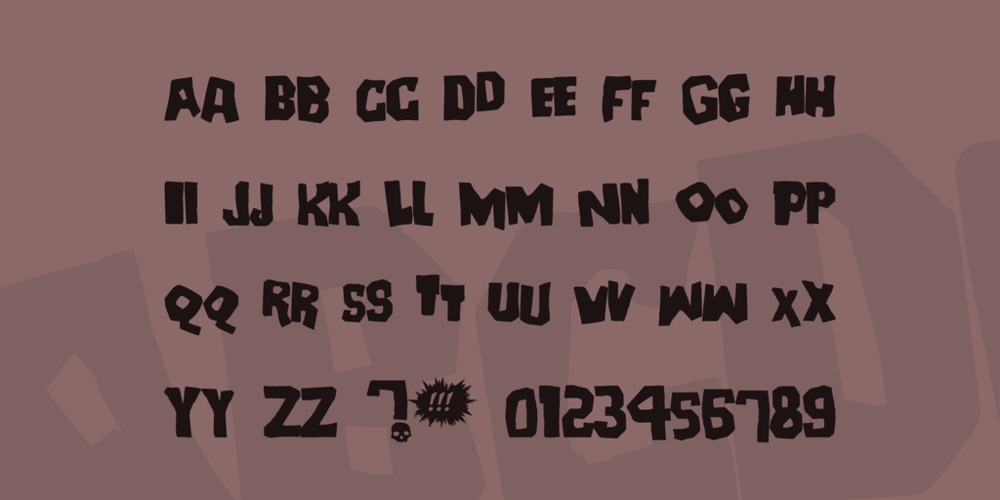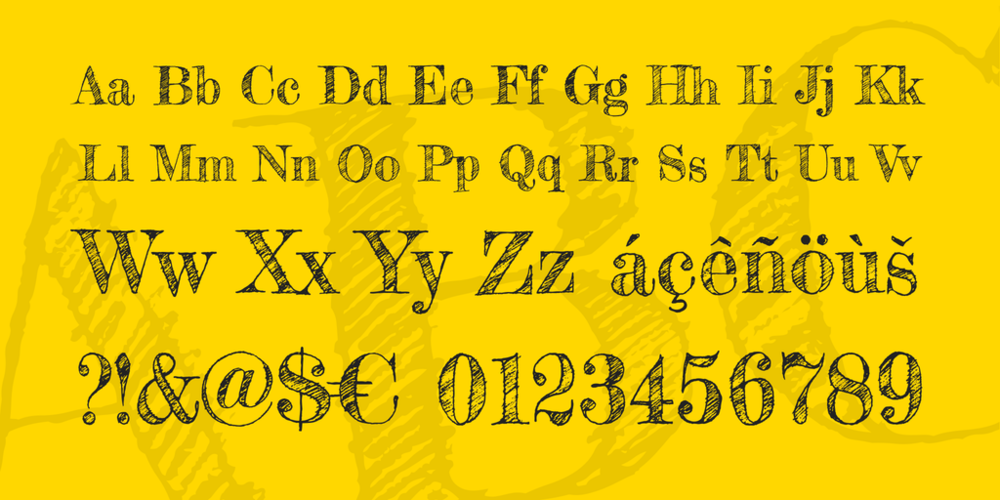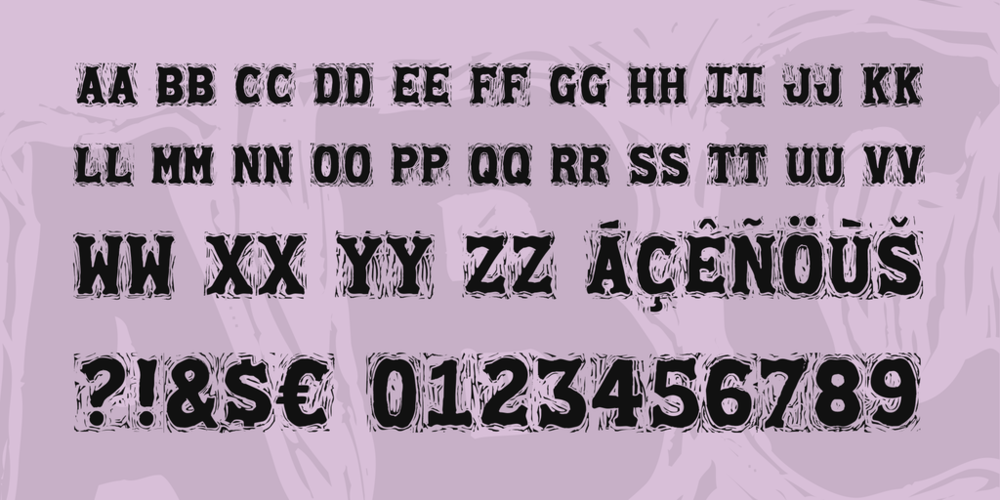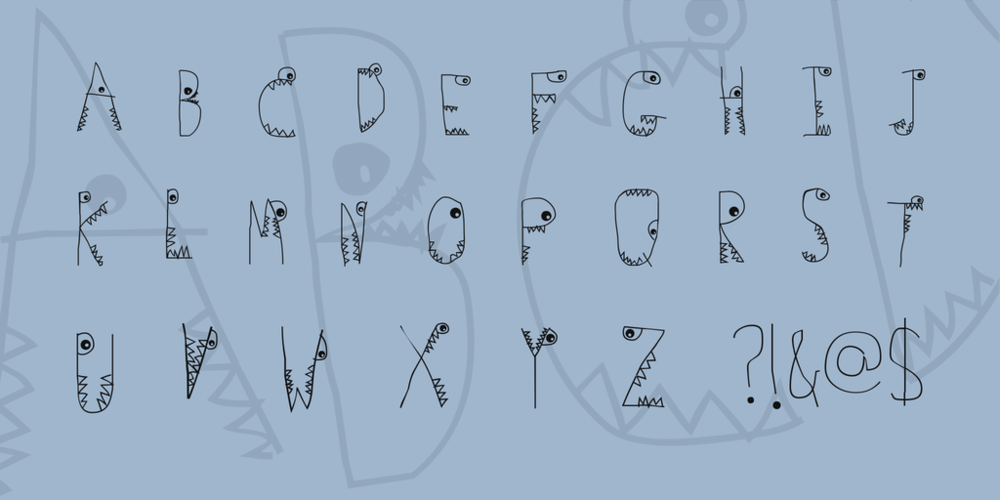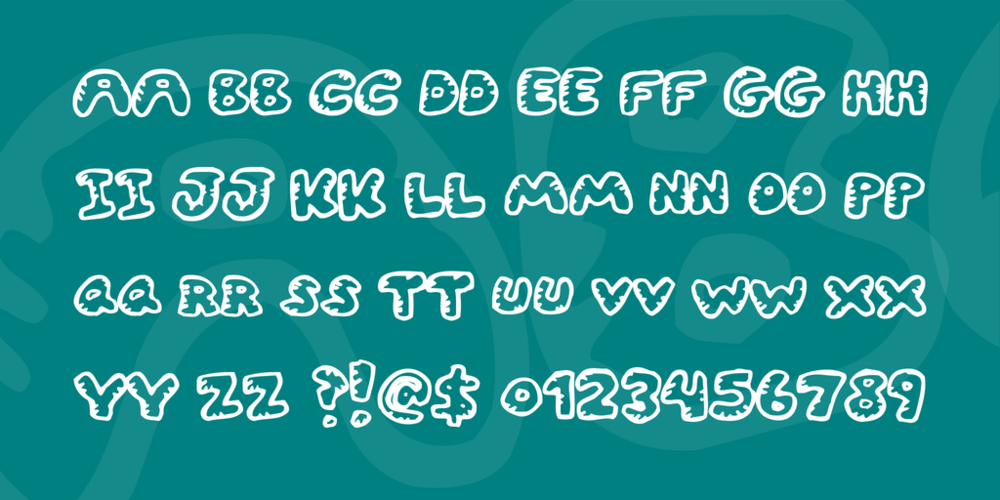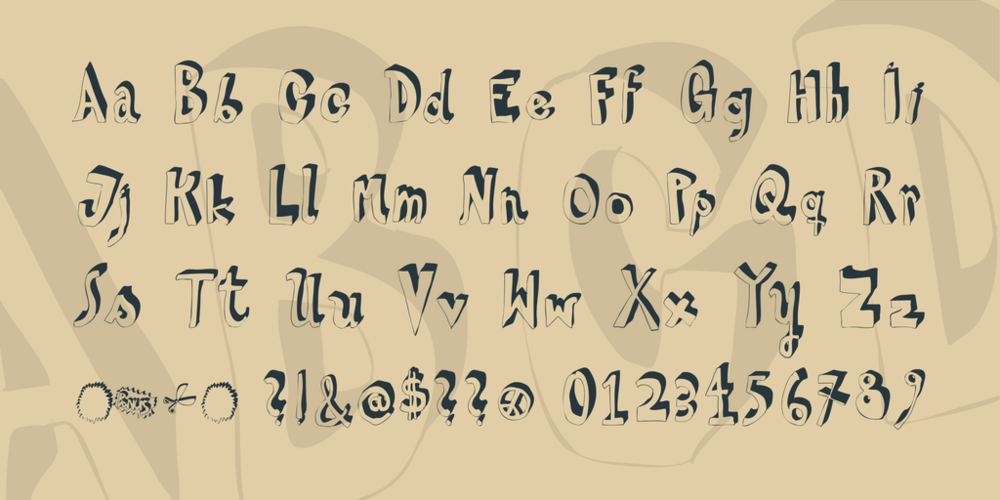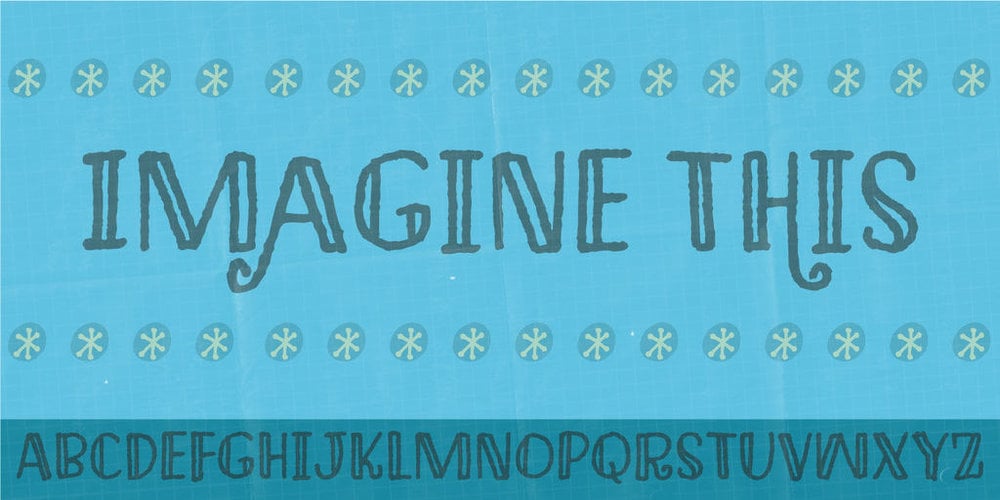
Need some inspiration that’ll help make your next project unique? Use these hand lettering fonts for your next lettering masterpiece!
If you’ve been searching for the perfect hand lettering font to inspire your next project, we’ve got you covered. There are thousands of fonts out there, but only a small fraction of them would actually make sense for hand lettering. Ideally you’d want a font to be super drawable, to vibe with the aesthetic of the project, and to catch the viewer’s eye. The perfect lettering font is one where each letterform is a piece of art in its own right.
To help sift through the thousands of fonts on the internet, we’ve hand-picked 35 eye-catching hand lettering fonts, all of which are free for personal use (many are even free for commercial use, too). We also give you some ideas on when to use each font style. From flourish-heavy fonts, to monospaced serifs, to super punk DIY fonts, to fonts that parody your favorite brands, these fonts are sure to inspire hand letterers of all skill levels.
1. 10 Minutes Font
An ominous name for an ominous lettering design. 10 Minutes is spookier than watching a ghost movie on Friday the 13th while trapped in a haunted house. This spine-tingling font design would be perfect for a Halloween project or if you’re just looking to use your hand lettering skills to connect with some spirits. Holding a seance soon? Hand letter your ouija board with 10 Minutes to add some extra spookiness.
Created by Pizzadude
2. 42 Font
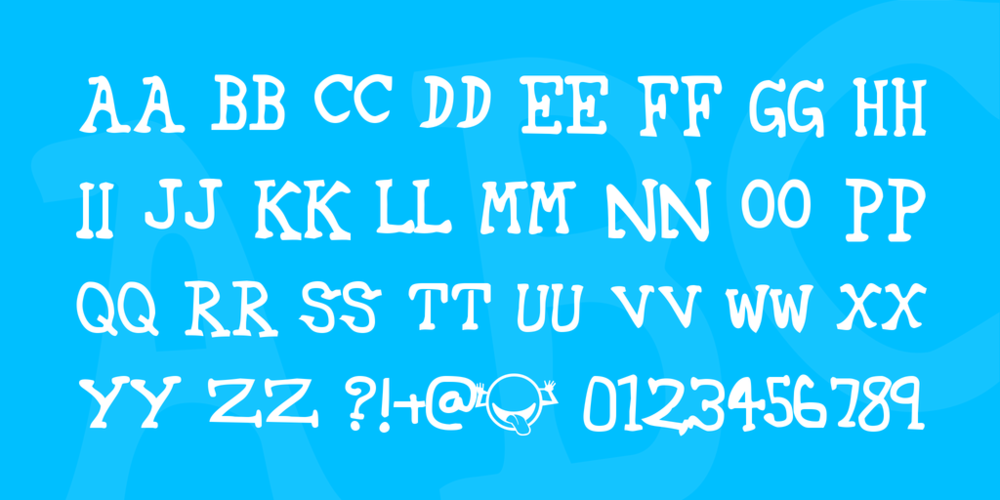
This is a plucky hand lettering style that embodies lighthearted rebellion. All the tails of the letterforms are sort of off to the side, extended a little too far to the right or a bit too far down. Some of the letters (like G) even look like they might be arrows pointing up. A sort of typographical middle finger raised to authority. This hand lettering font would be ideal for projects that express a sort of youthful, reckless abandon.
Created by Dale Harris
3. Candy Inc. Font
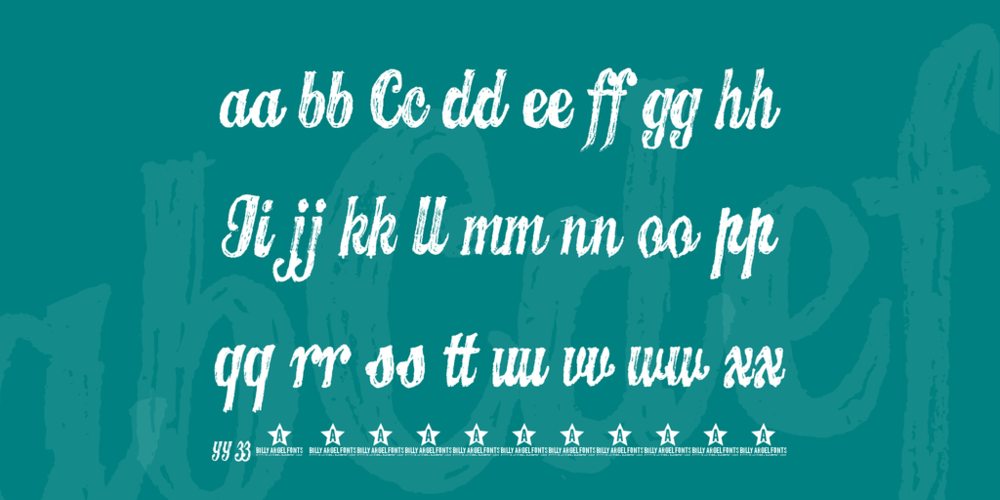
Candy Inc. is a script hand lettering design that combines the elegance of script with the shading of more typical blocky letterforms. It’s a great font design for hand lettering artists that are looking to try something subtle without being totally unnoticeable. It’s a font that skillfully sits at the intersection of two different types of styles.
Created by Billy Argel
4. Carolingia (BigfooT) Font
Carolingia is a lettering design style that seems like it’s straight out of the mind of J.R.R Tolkien. It’s not hard to imagine this font outlining the misadventures of elves, orcs, wizards, and even hobbits. As you’d probably be able to guess, this font design seems perfect for a fantasy themed hand lettering project or one that could use a double shot of magical inspiration. Notice the sharpness of the lowercase “f” that makes the letterform seem sword-like.
Created by Ricky Vampdator
5. Caveman Font
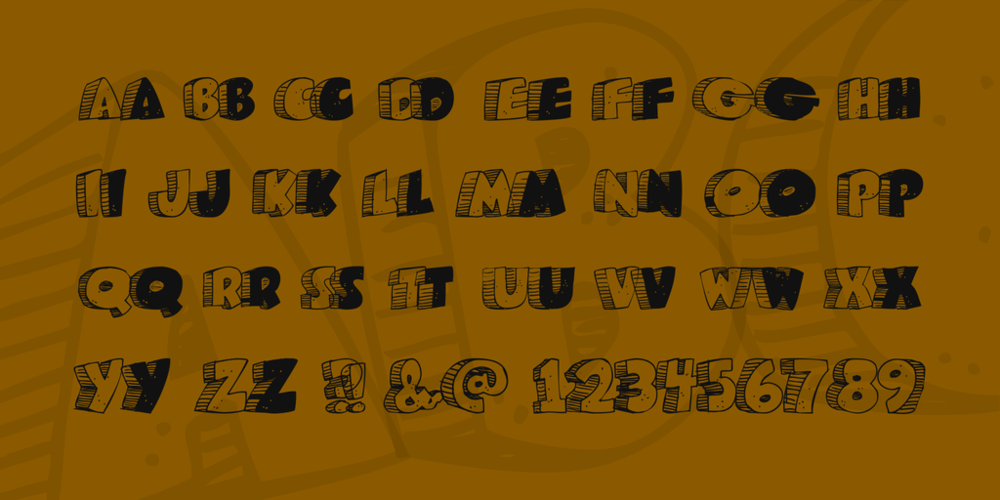
This is a super fun hand lettering design that actually looks like it was carved into stones by cavemen (shout out to Fred Flinstone). This spot-on prehistoric effect was mainly achieved through tiny notchings on the left sides of the letters as well as a few small dots that give the letterforms texture. This font style is perfect for hand lettering projects that are supposed to have a prehistoric or ancient feel.
Created by Font-a-licious
6. Channel Tuning Font
This font design is eye-catching in that it completely achieves its desired visual effect. All the letters look like a TV picture in the process of being tuned (though we’re now far beyond the days where you’d have to manually turn knobs to achieve a picture). This font style would be perfect for framing your projects within a drawn TV structure.
Created by Brain Eaters
7. Chlorinar Font
If you grew up in the 80’s or 90’s, you’ll probably recognize this font style right away. It bears a pretty strong resemblance to the title card of a certain animated TV show. If you haven’t guessed, it’s the one that highlights the antics of 4 walking, talking teenage mutant ninja turtles. Nostalgia is huge right now, so we suggest using this font if you want to give your hand lettering designs a certain throwback feel.
Created by Cafeen Fonts
8. Christmas on Crack Font
Besides having a hilariously descriptive name, Christmas on Crack is one of the most eye-catching font designs on this list. It does a good job of alluding to a traditional “Once upon a time” style, but switches up the tradition with sharp letterforms as well as the curvy tails on the R’s, C’s, and S’s. This hand lettering font would be a perfect addition to a project poking fun at holiday traditions.
Created by Pizzadude